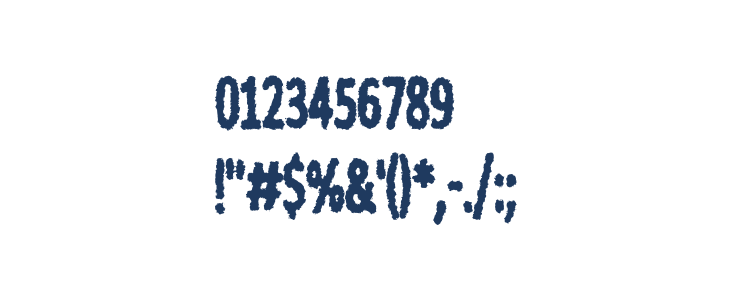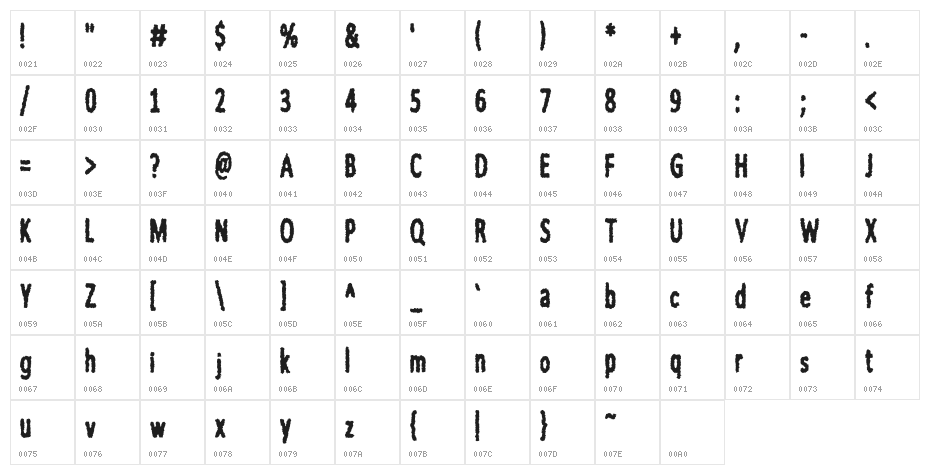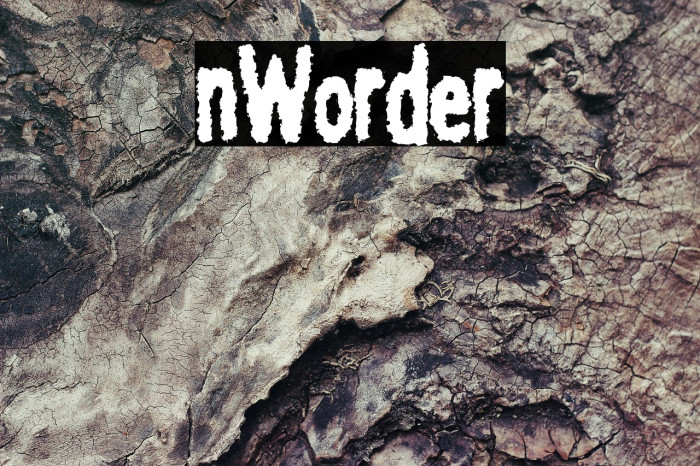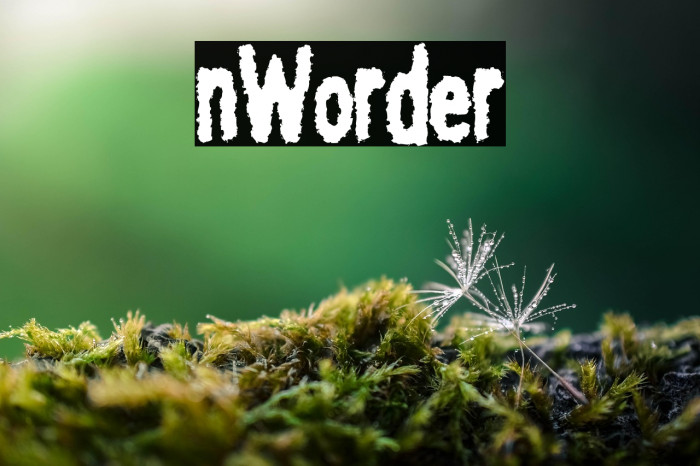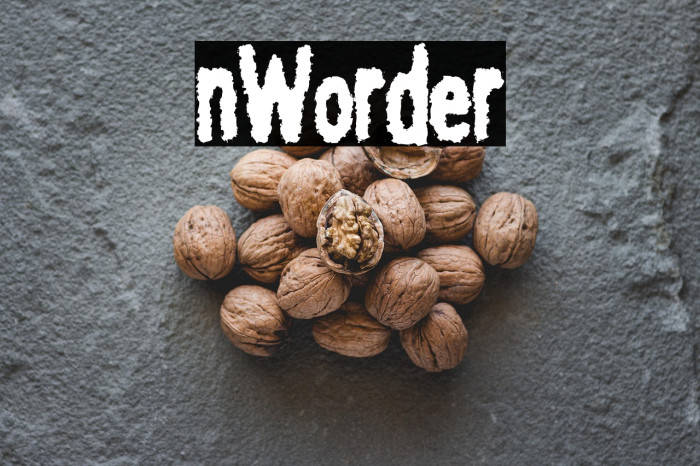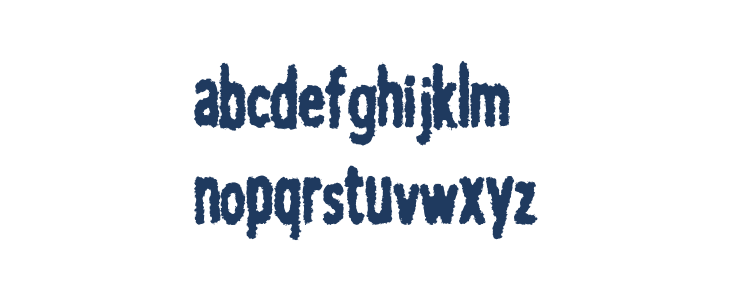
nWorder Font
nWorder Description
This font features a bold and textured appearance, reminiscent of a hand-painted or stamped style. The characters are slightly irregular, giving it a rustic and organic feel. The uppercase and lowercase letters maintain a consistent weight, with rounded edges that soften the overall look. The numbers and special characters follow the same design, ensuring uniformity across all glyphs. This font's unique texture makes it stand out, adding a tactile quality to any design.
| Overall Style | Rustic, Handcrafted |
| Proposed Projects | Ideal for projects that require a handcrafted or vintage aesthetic, such as posters, packaging, or branding for artisanal products. |